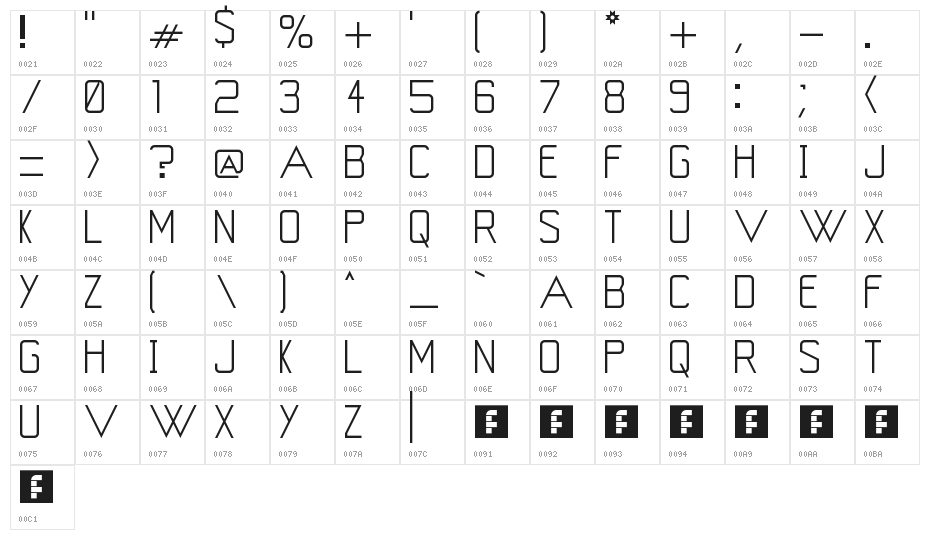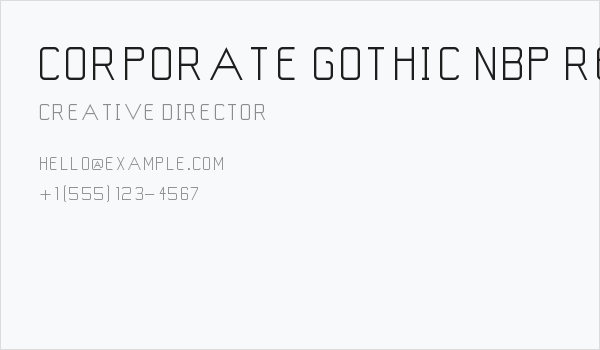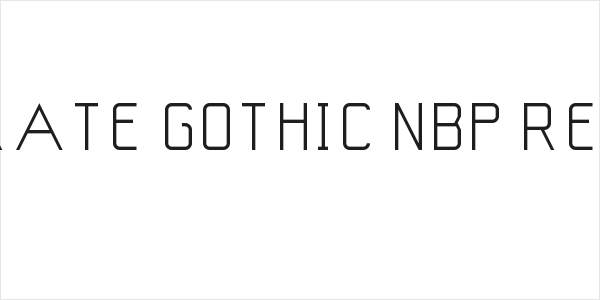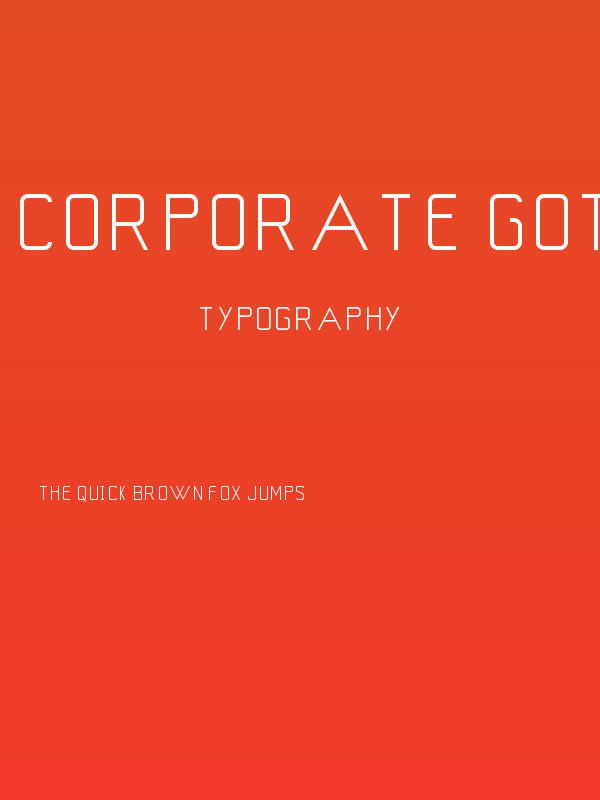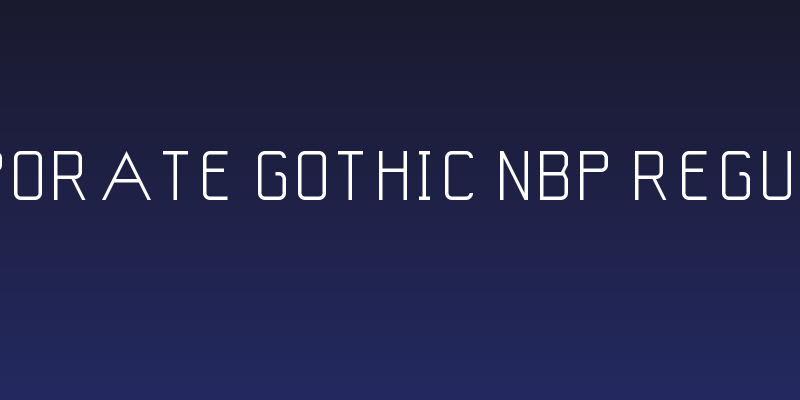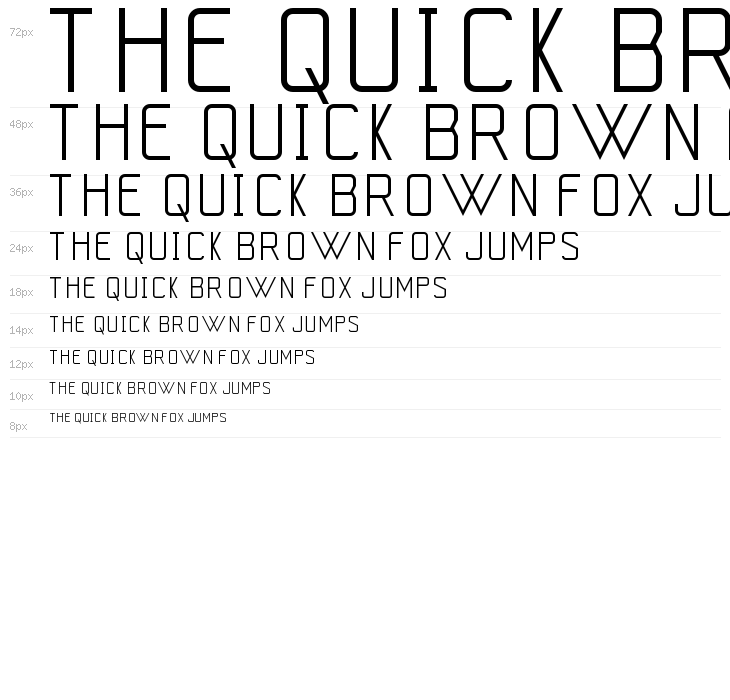
Corporate Gothic NBP Regular Font
Corporate Gothic NBP Regular Description
This font features a clean, geometric design with a modern aesthetic. The characters are constructed with straight lines and sharp angles, giving it a technical and futuristic feel. The uppercase and lowercase letters maintain a consistent height, contributing to a uniform appearance. The numerals are distinct and easily readable, while the special characters are designed to match the overall style. The font's simplicity and clarity make it suitable for various applications where readability and a contemporary look are desired.
| Use Case | Headlines, Logos, User Interfaces |
| Proposed Projects | Ideal for corporate branding, technology-related projects, user interfaces, and signage. |